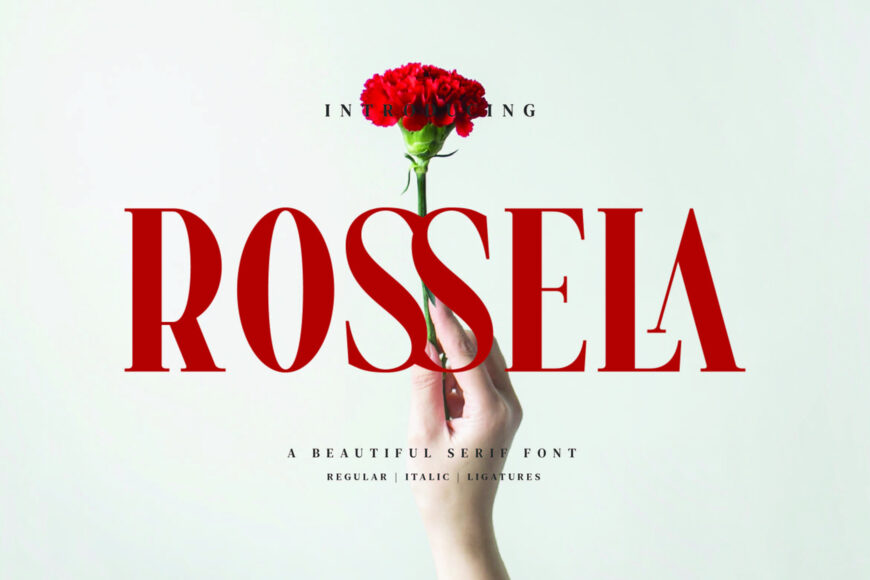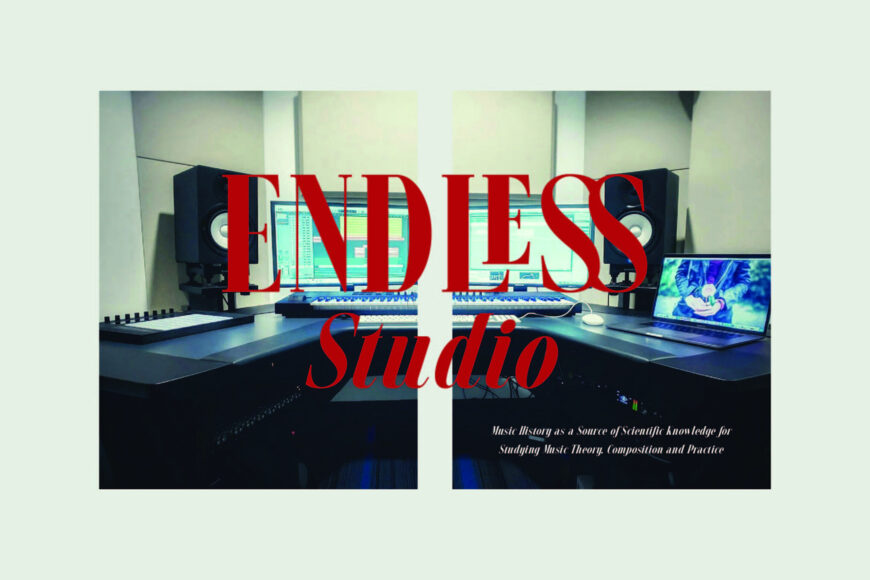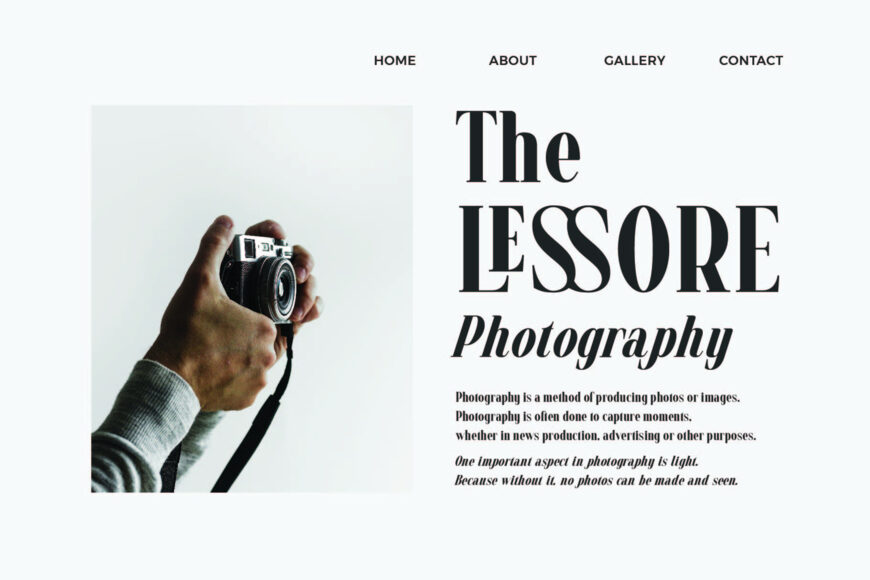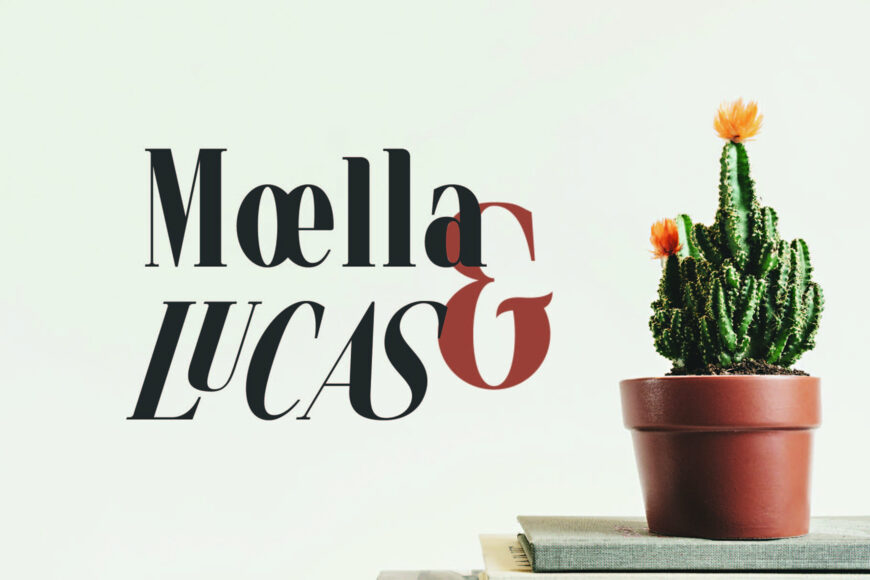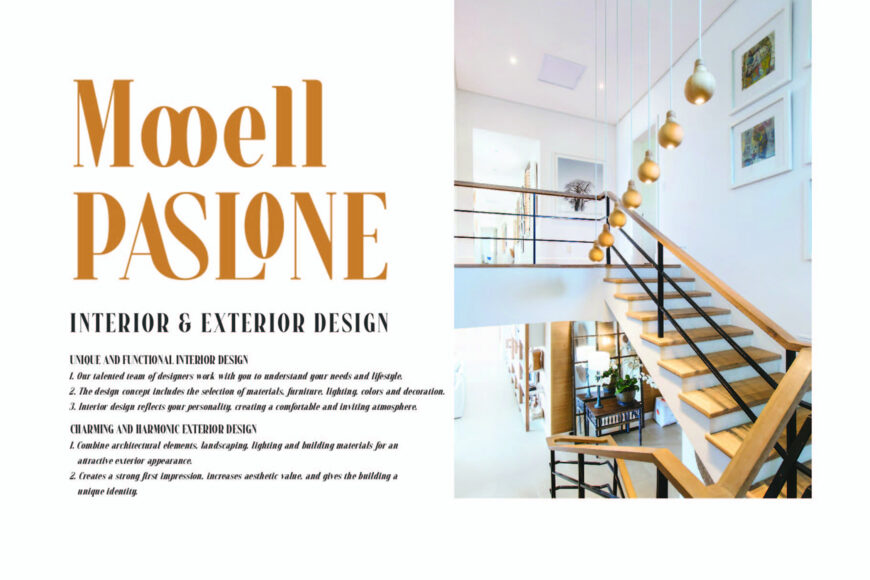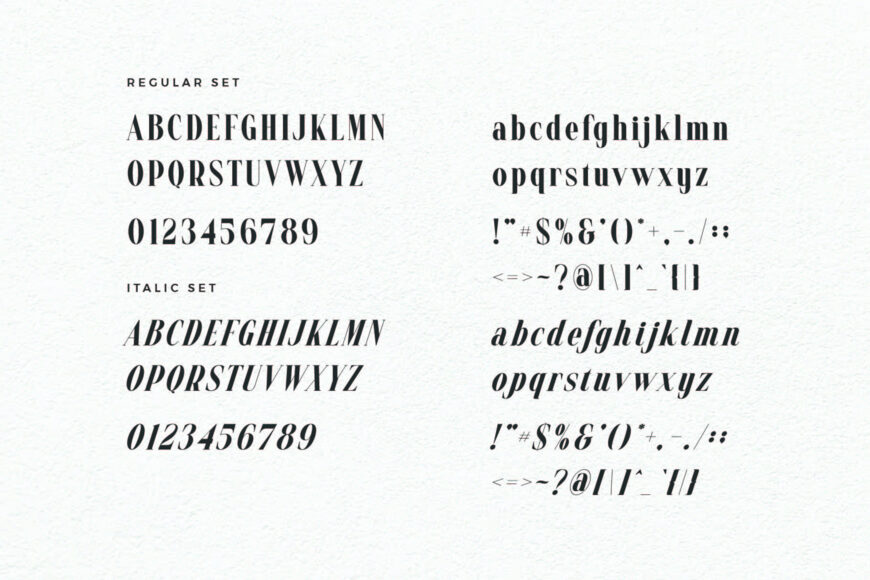
Rossela is a stylish and elegant serif font that embodies sophistication and refinement. Its graceful curves and balanced proportions make it perfect for luxurious branding, high-end editorial layouts, and sophisticated invitations. Elevate your designs with the timeless beauty and class of this exquisite typeface.